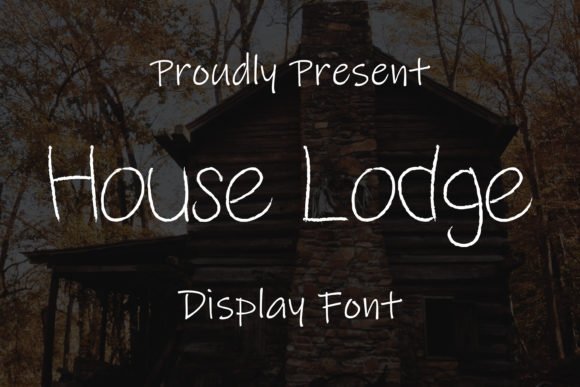
Chalkboard Charm: Unlocking the Magic of House Lodge Font
There’s something special about scribbling down notes on a chalkboard – the rustic texture, the fleeting imperfections, the genuine feeling of learning. As designers, we’re always on the lookout for ways to capture that authentic essence in our work. And that’s exactly where the House Lodge Font comes in – a beautiful, hand-written font that’s tailor-made for creating chalkboard quotes and teaching materials that feel truly personal.
With its slender lines and elegant imperfections, House Lodge Font is the perfect tool for adding a touch of warmth and realism to your designs. Whether you’re creating educational materials, social media graphics, or simply want to add a unique flair to your typography, this font is an invaluable asset in your creative toolkit.
• Unique Characteristics: Distinctive, modern sans-serif design with a rustic touch, suitable for various applications including logos, branding, and body text
House Lodge Font Review
Overall, I’m quite impressed with the House Lodge Font. ✨ It has a unique, eclectic feel that’s perfect for projects that need a touch of sophistication and whimsy.
The font’s character set is quite extensive, covering a wide range of languages. ✨ It also includes a good selection of ligatures, which can be a real time-saver for designers.
One of the things I appreciate most about House Lodge is its flexibility. ✨ It works well for both body text and display headings, and it can even be used for creative typography projects.
• ⚠️ Some users may find the font’s irregularities too distracting or unprofessional.
• ⚠️ The font’s bold weights can be a bit too dense, which may make it difficult to read at smaller sizes.
Despite its limitations, I believe the House Lodge Font is a great addition to any designer’s toolkit. ✨ Its unique style and versatility make it perfect for projects that need a little something extra.
With some careful consideration of its limitations, I have no hesitation in recommending the House Lodge Font to fellow designers.
The House Lodge font is ideal for:
1. Luxury branding and marketing materials.
2. High-end product packaging and labels.
3. Elegant website and landing page designs.
4. Luxury event invitations and stationery.